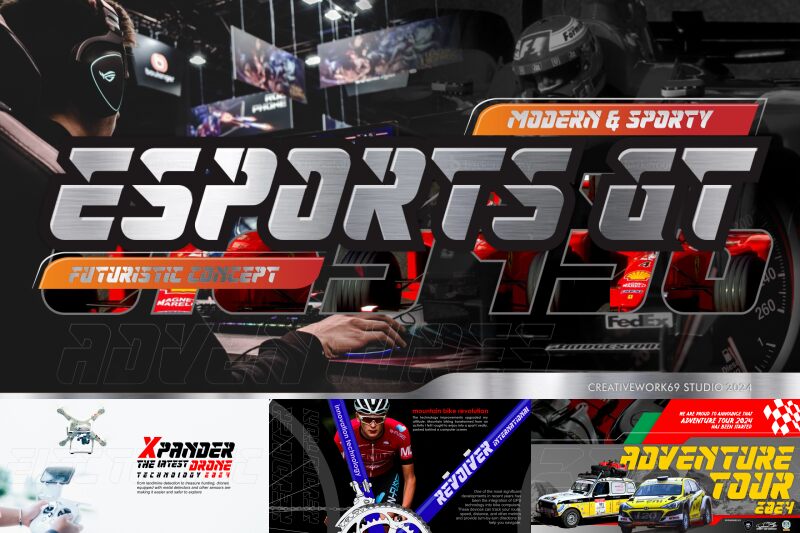
ESPORTS GT
Esports GT font by Creativework69 Studio is a free bold techno/racing font. Built to look fast at a glance, it leans hard into motion with aggressive forward slant, razor-cut diagonals, and chunky, beveled strokes that read like bodywork and track lines. Tight rhythm and blocky geometry keep letters locked together, creating a compressed, high-octane headline texture that grabs attention in a split second.
Using Esports GT, your work shines on esports logos, streaming overlays, team jerseys, motorsport posters, sponsor graphics, and YouTube or Twitch thumbnails. The dense, slashed forms deliver instant energy and clear hierarchy at large sizes, even in busy compositions. For balance, pair this free font’s headlines with a neutral grotesk for body copy, and keep tracking snug to preserve that welded, speed-focused feel.